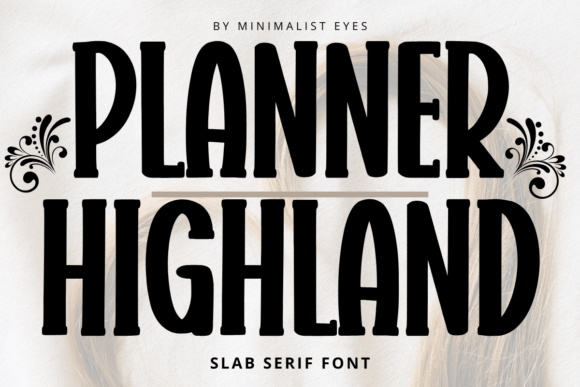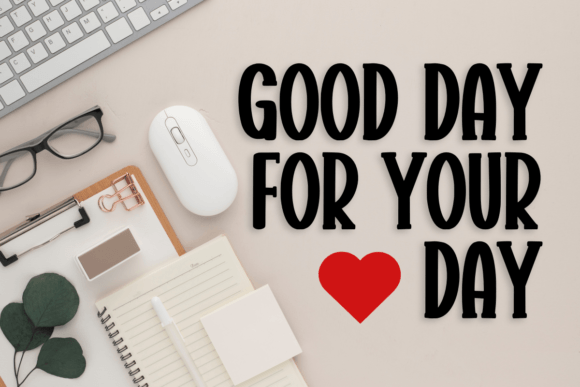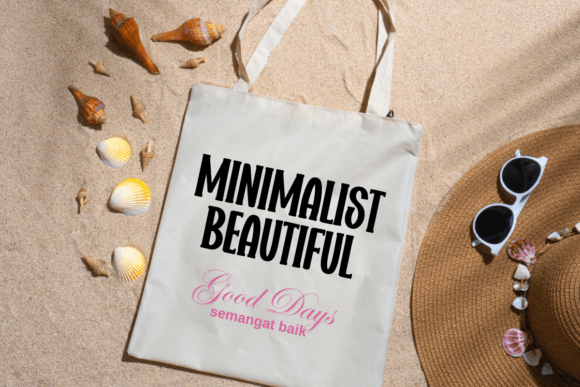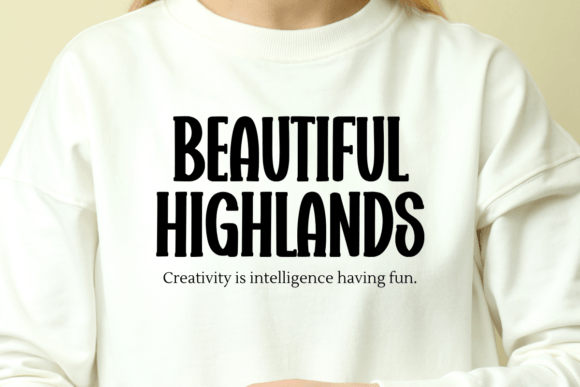
Planner Highland Font
About the Planner Highland Font
Elevate your designs with Planner Highland Font, a font that combines sophistication with readability. Planner Highland a modern and friendly slab serif font, is a delightful blend of whimsy and clarity. Its playful curves and rounded edges bring a sense of warmth to any design. Perfect for children’s books, invitations, and branding, Planner Highland radiates a sweet charm that captures attention with its inviting personality.
Planner Highland excels in display applications such as headlines, logos, and short-form text on packaging or posters. Its friendly personality makes it ideal for children’s products, invitations, and brands focused on warmth and approachability. However, its slab serif structure and relatively large x-height make it less suitable for extended body copy or UI elements where legibility over longer passages is crucial.
Pairing Planner Highland with a clean sans-serif like Montserrat or Open Sans provides a sophisticated contrast, balancing its playful curves with a sense of modern minimalism. For a more whimsical feel, consider pairing it with a flowing script font like Great Vibes, but use it sparingly to avoid visual clutter. Alternatively, a geometric sans-serif like Futura would offer a bolder, more contemporary juxtaposition.
The overall personality of Planner Highland is best described as friendly and approachable, yet with a touch of playful sophistication. It’s a font that communicates optimism and approachability without sacrificing readability in its intended applications.